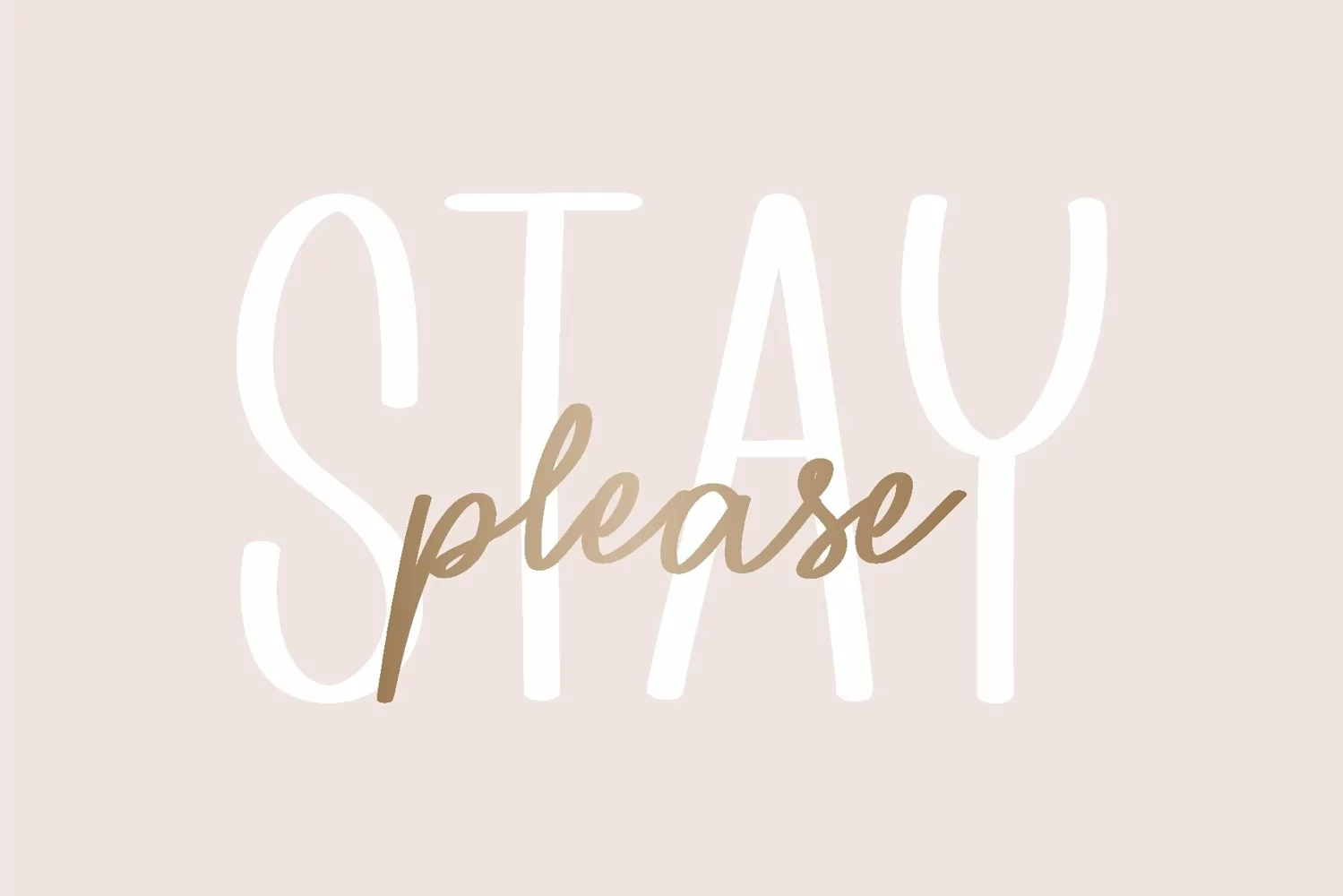
You Are My Sunshine is a spectacular duo font (sans serif and script). Incredibly versatile, this font fits a wide pool of designs, elevating them to the highest levels. Add this font to your favorite creative ideas and notice how it makes them come alive!